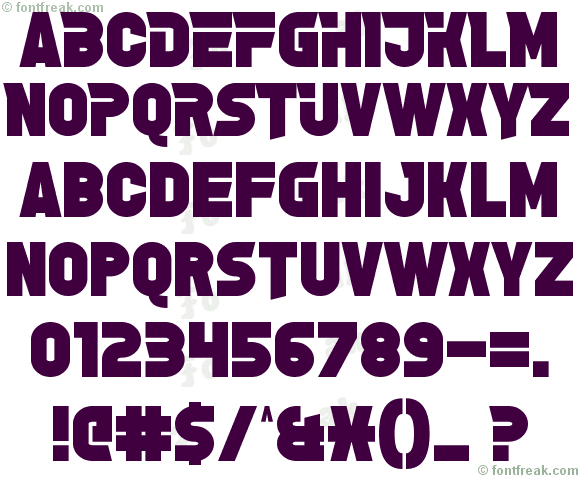
Grelsey Kammar
About Grelsey Kammar
Grelsey Kammar is a captivating display typeface designed by Andrew McCluskey in 2014, offered as freeware. This font falls under the decorative category, showcasing unique visual characteristics that make it stand out. The typeface features a bold stroke weight and a playful contrast that adds depth to each character. Its carefully crafted letterforms exhibit a mix of rounded and sharp edges, while the spacing is generous, allowing for excellent legibility. Additionally, Grelsey Kammar incorporates decorative elements that enhance its overall aesthetic, making it perfect for eye-catching designs.
The versatility of Grelsey Kammar allows it to shine in various applications. It is particularly suited for wedding invitations, where its whimsical nature adds a touch of elegance. For movie posters, the font's boldness captures attention while conveying a sense of drama and excitement. Restaurant menus benefit from its readability and charm, enticing diners with a delightful presentation of food offerings. Small business branding can also leverage Grelsey Kammar to create memorable logos and marketing materials that resonate with customers.
Targeting graphic designers, small business owners, and content creators, Grelsey Kammar offers a fresh alternative to conventional typefaces. Its unique style appeals to those looking to make a statement in their designs without sacrificing readability.
What sets Grelsey Kammar apart is its ability to blend playful aesthetics with functionality. This typeface is not just visually appealing; it also provides endless possibilities for creative expression. For anyone seeking to elevate their design projects, the Grelsey Kammar font free download is an excellent choice, ensuring you have access to a striking and versatile typeface that can enhance any visual narrative.